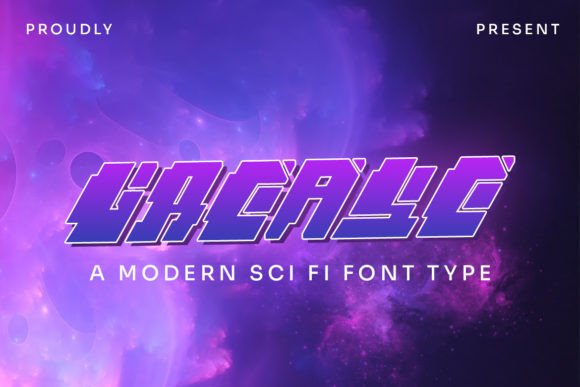
Journey into the future with Grease, a groundbreaking sci-fi slanted display font that will revolutionize your design horizons. Experience the thrill of technological marvels and interstellar adventures with its sleek letterforms that dance with energy and innovation.
Grease's sharp edges and striking slanted design create a visual spectacle that captures the essence of progress and innovation. It's the perfect font for forward-thinking designers who want to push boundaries and make a statement.
Imagine your web banners adorned with Grease, pulsating with power and intrigue. Your words will leap off the screen, captivating your audience with their futuristic charm. Grease breathes life into logos and branding, giving them an aura of modernity and technological prowess.
Unleash your creativity in gaming projects and let Grease transport you to uncharted territories. Its sleek lines and dynamic angles will bring your characters and environments to life, creating an immersive experience that will leave players in awe.
Step into the world of Grease, where imagination meets reality. This font is not just a collection of letters; it's a portal to a world of boundless creativity, where your ideas take on a life of their own. Embrace Grease and watch your designs ignite with the spirit of the future.